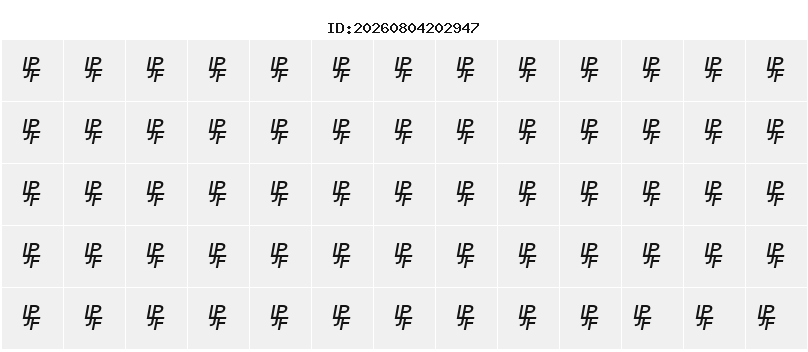
• Font Name: NewStyle Embossed
• Designer: PJL
About NewStyle Embossed.ttf
NewStyle Embossed.ttf is a modern, elegant sans-serif font designed for ultimate readability and visual harmony. Perfect for branding, headlines, web design, and print materials.